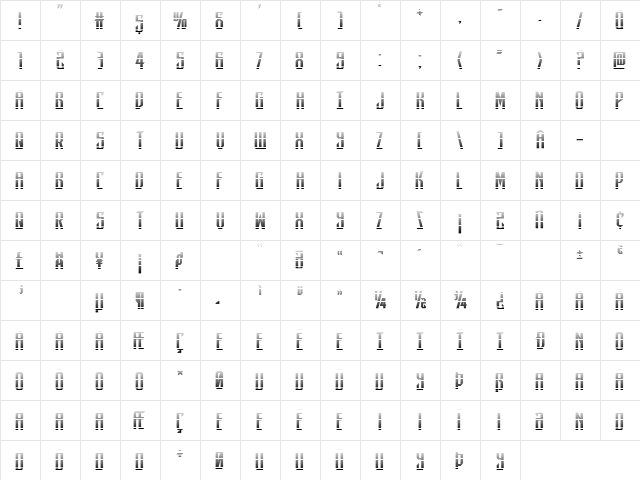
Dark Dominion Gradient Regular
Design Context for Dark Dominion Gradient Typeface
Dark Dominion Gradient is a composed and adaptable typeface that performs quietly and consistently across a wide range of design contexts.